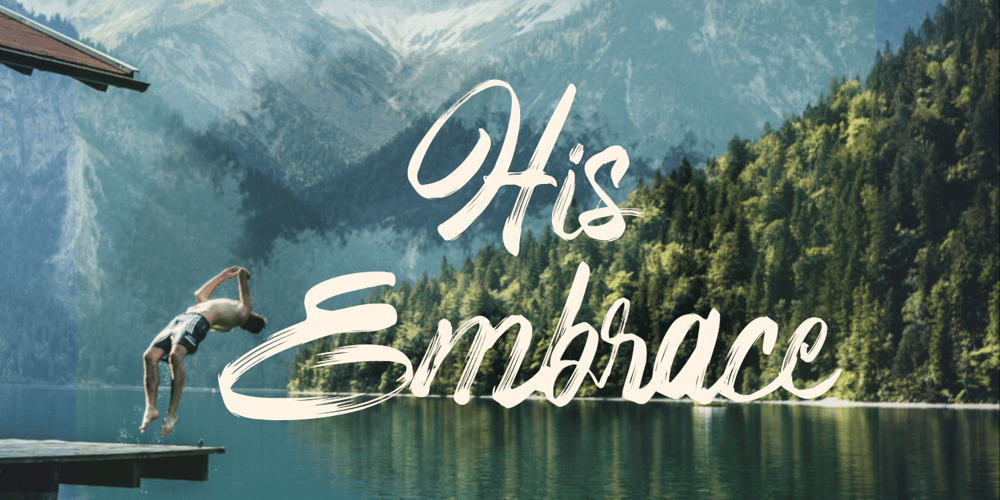
His Embrace
His Embrace font
His Embrace Font Family was designed by Syukur Setiyadi and published by SSI.Scraps. His Embrace contains 1 styles and family package options. The His Embrace is hand brush font with scratch bold natural textures. it is a rough texture script. your design will look brave, great and powerful. Fall in love with its incredibly versatile style and use it to create gorgeous and timeless designs with Dry Brush, an interesting and unique handwritten brush font.Fall in love with its incredibly stylish look and use it for logos, quotes, invitations, business cards, power point presentations, and more!